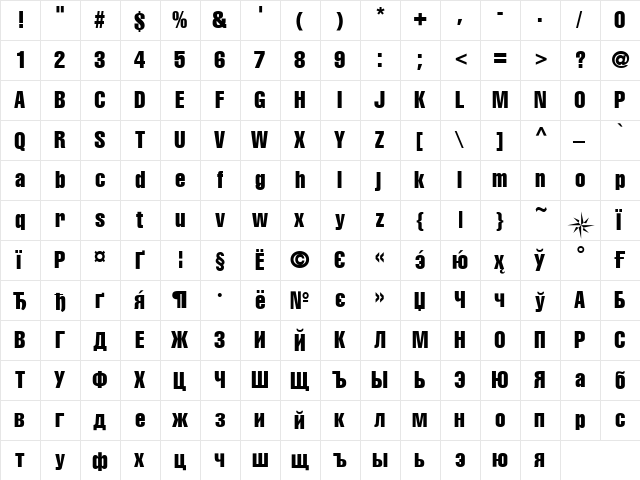
CyrillicCompressed Medium
Design Context for CyrillicCompressed Typeface
CyrillicCompressed offers clean, dependable letterforms without strong stylistic allegiance, making it a practical choice for designers who need flexibility.